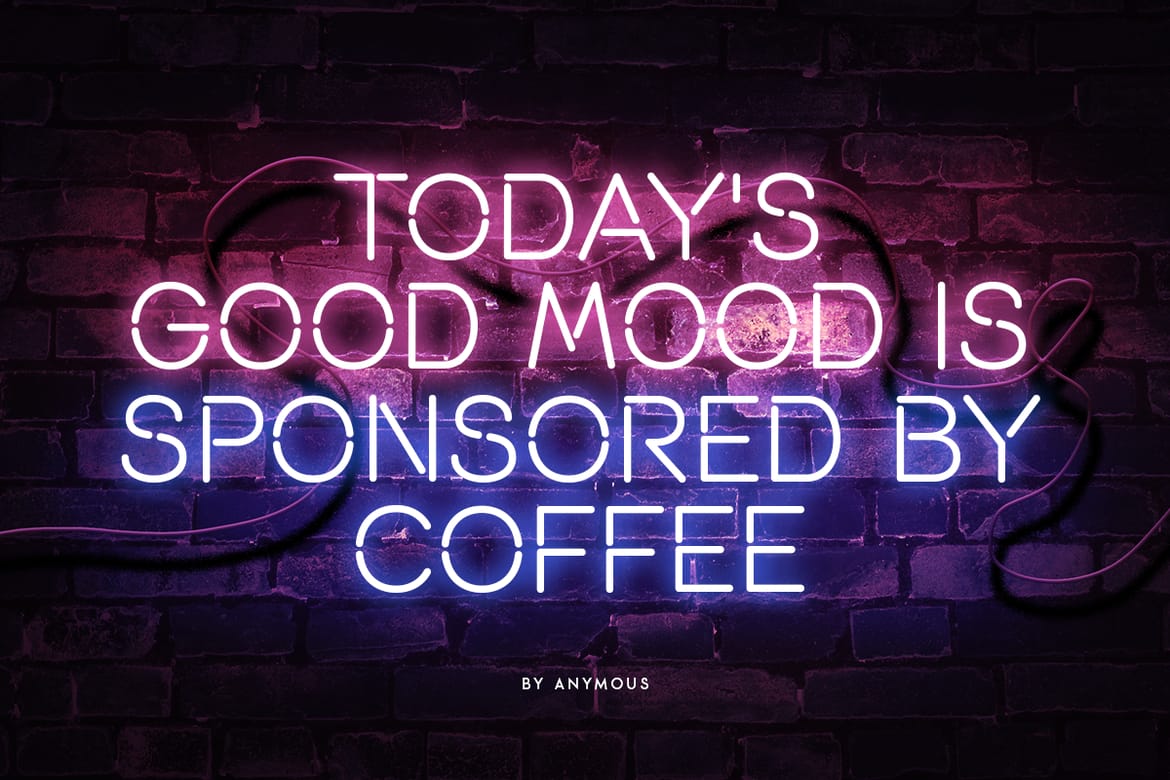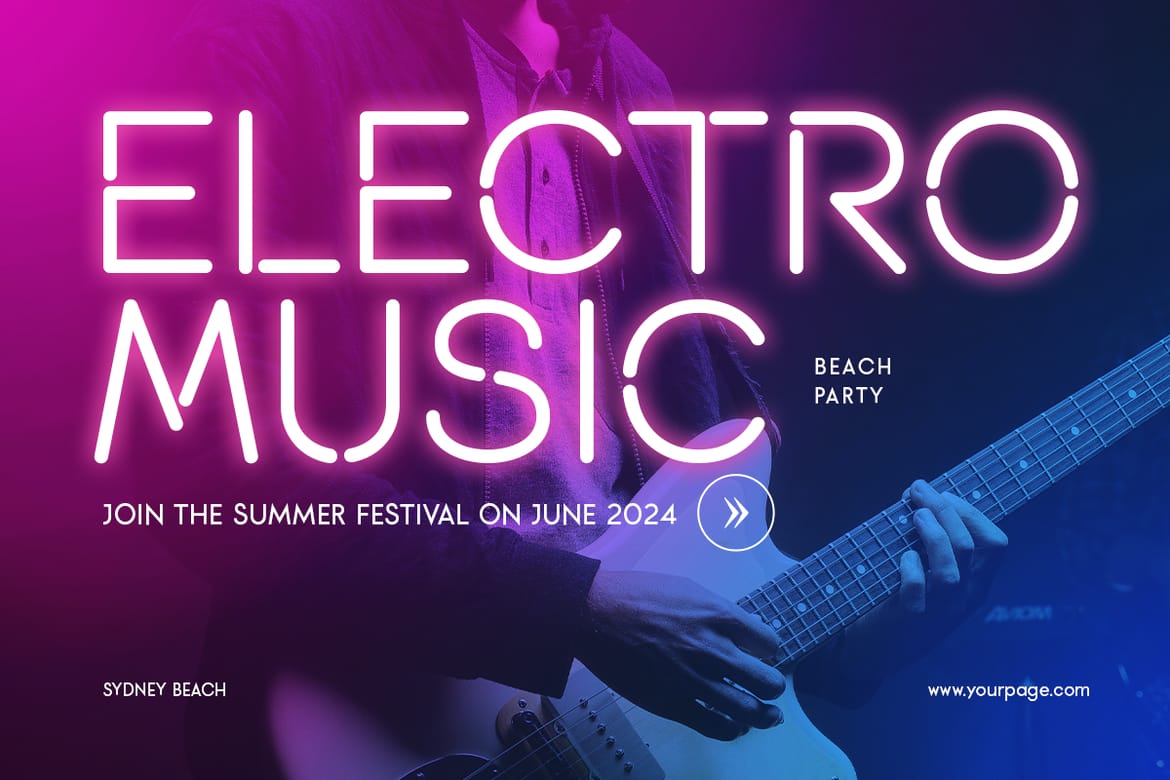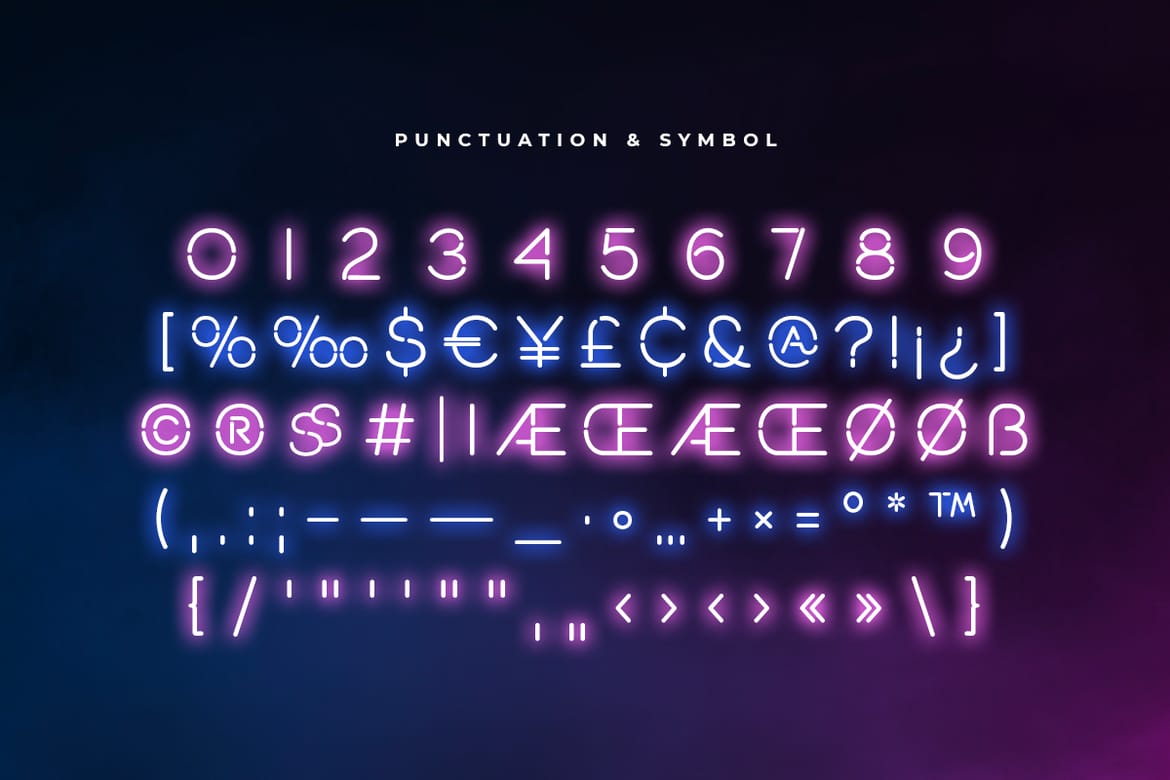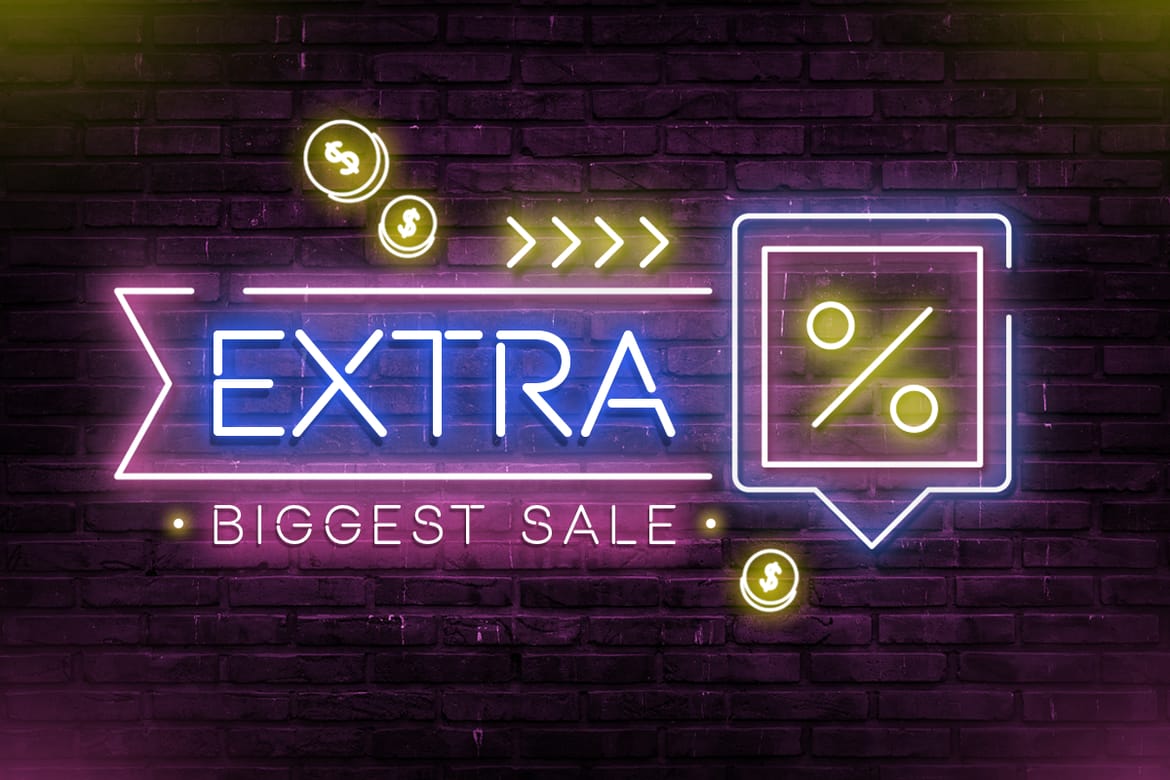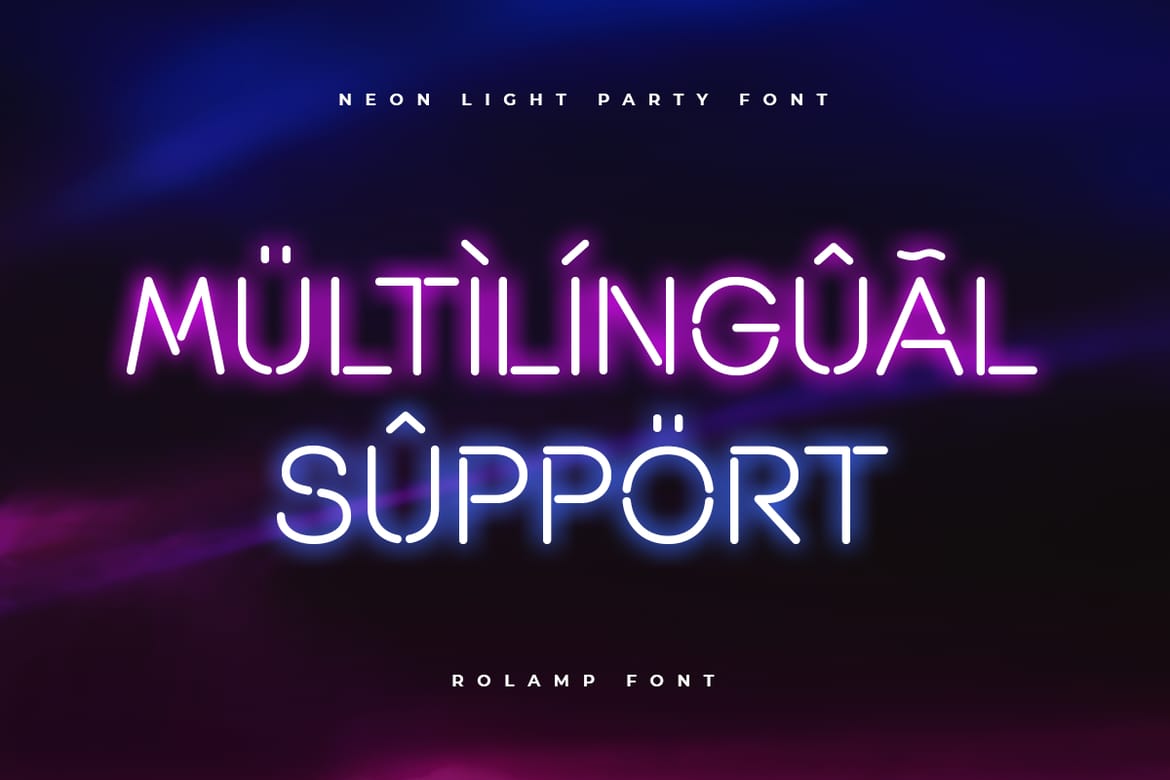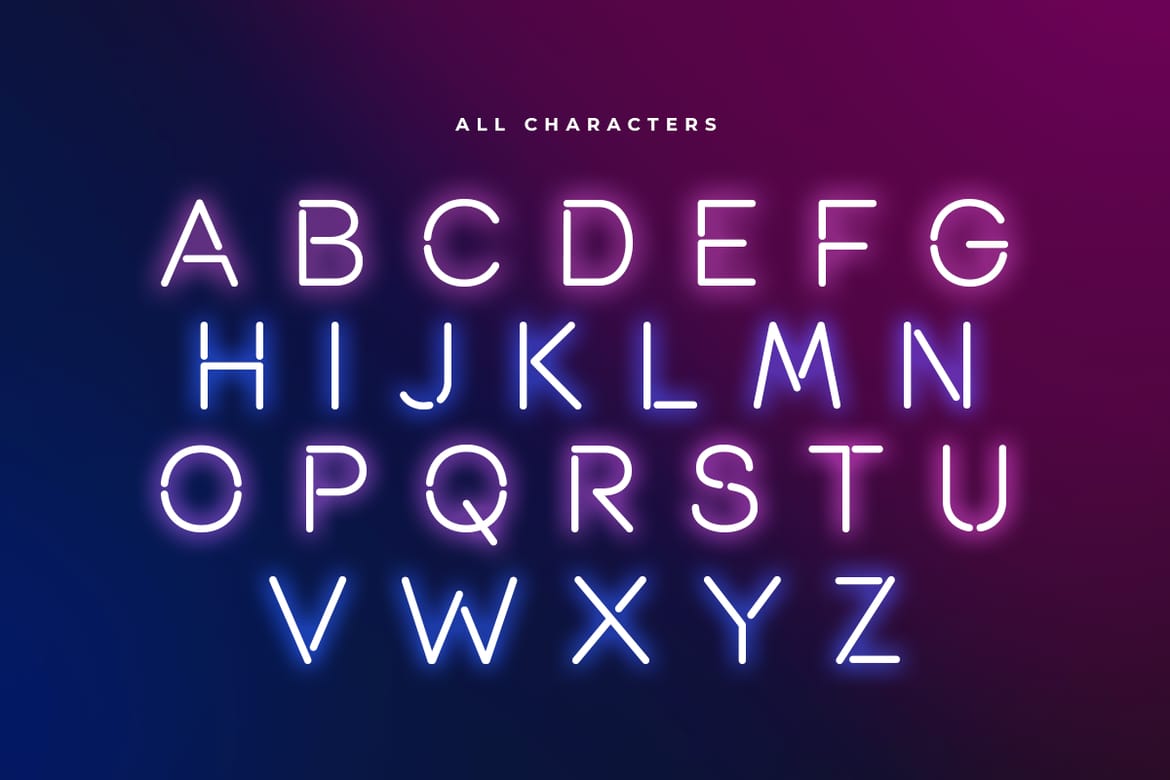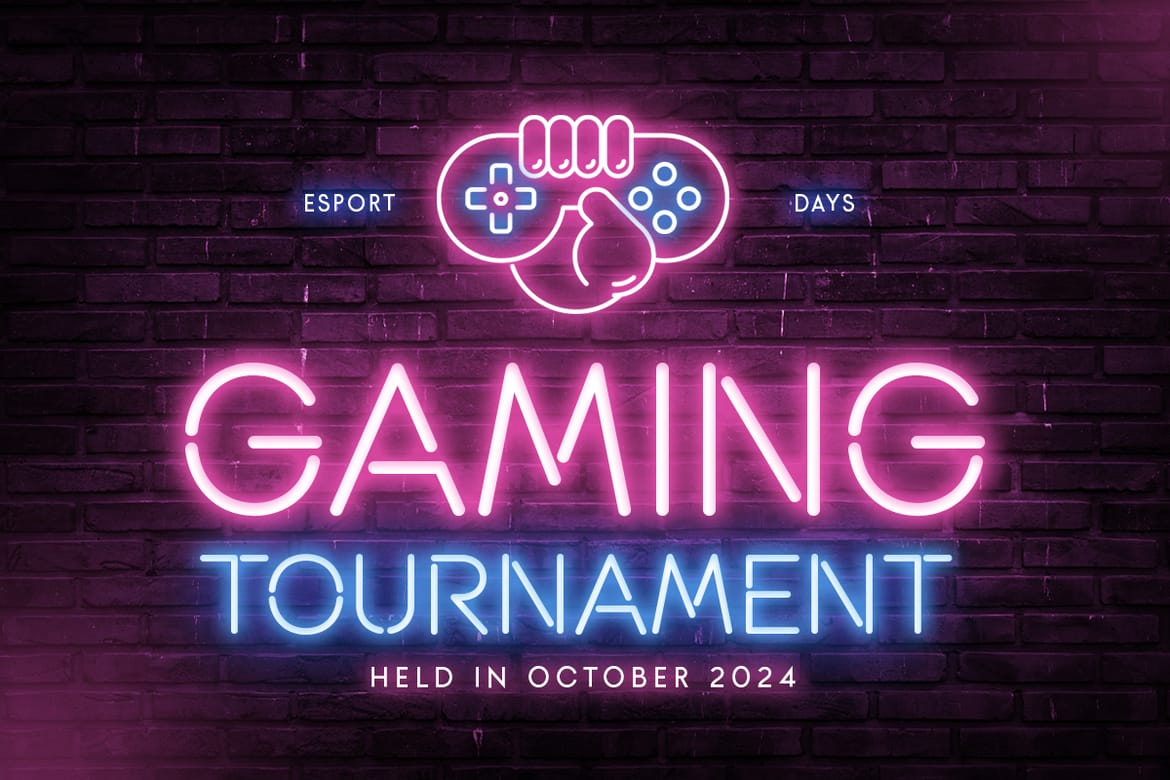
ROLAMP Neon Light Font, unique shape that perfect for party and any events, make your design look Unique. A new Display Font that we created special for Headline, Title and more stand out typography needs. It's so perfect to add your style and headline overview. And specially for this font, we crafted for unique style and modern feels so enjoy to create any project that will show your main idea out.
Ready with Uppercase & Lowercase characters
- Glowing neon lamp display font
- Full uppercase & lowercase set